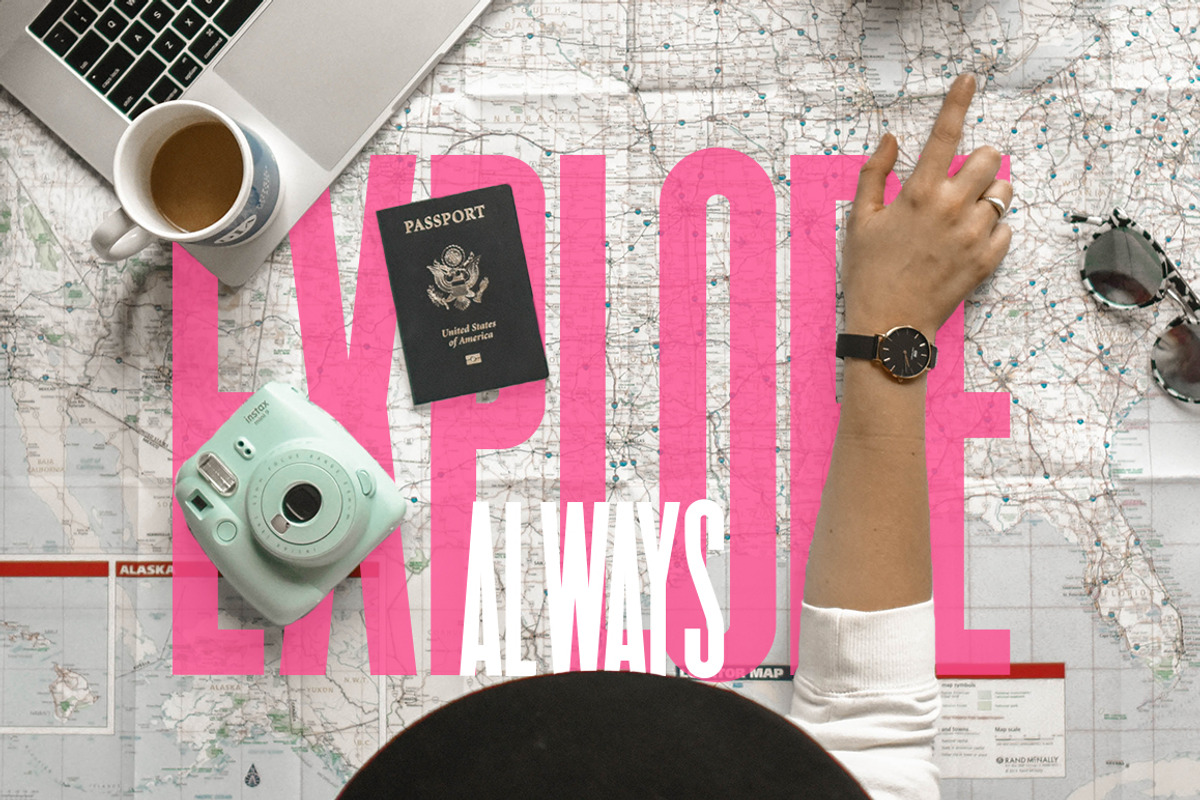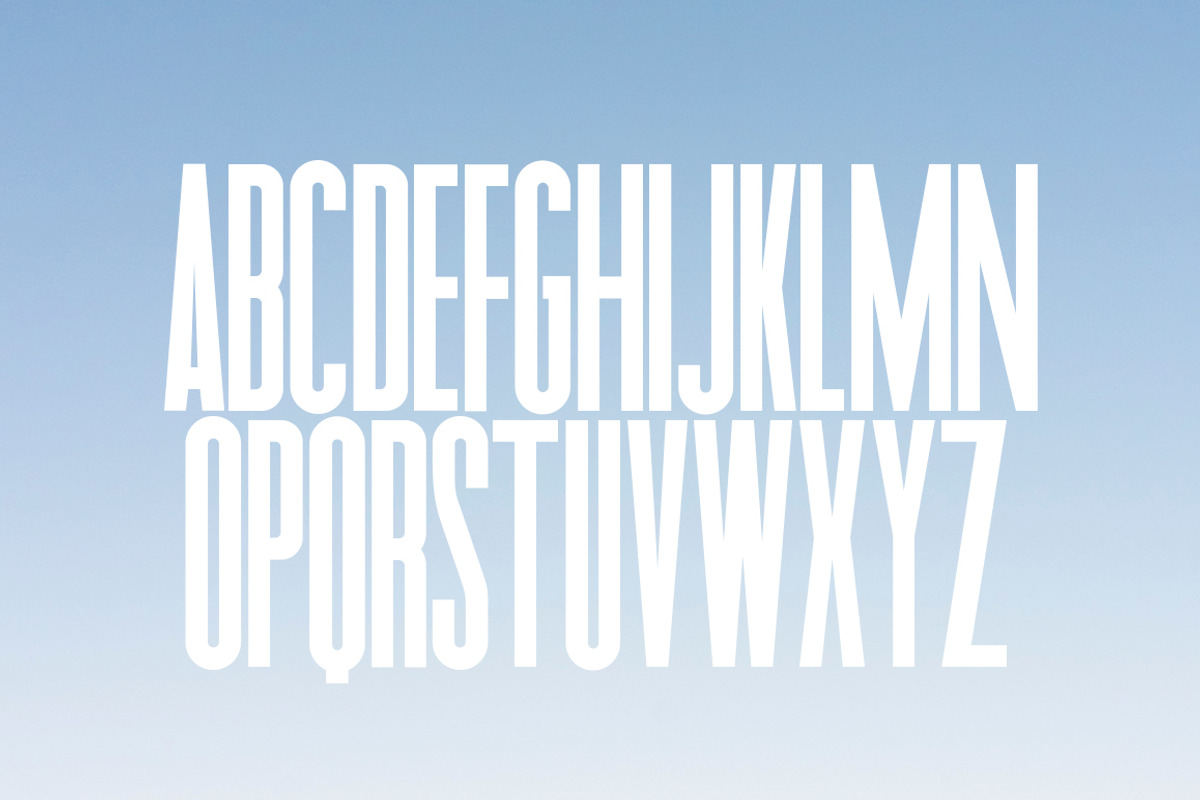
Travel Sans Font
Introducing Travel! A bold new font that stands head and shoulders above the rest! Let it take you on a trip around the world and help your designers becomes rounded travelers.
Travel Sans Font by Salt & Pepper Designs fits naturally into Branding, posters, packaging, typography.